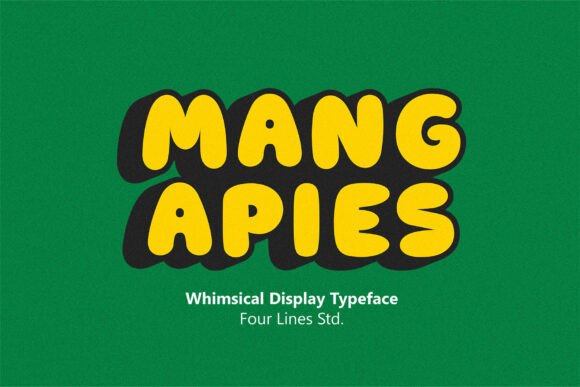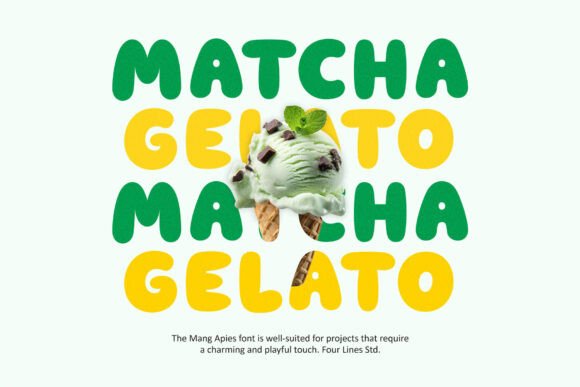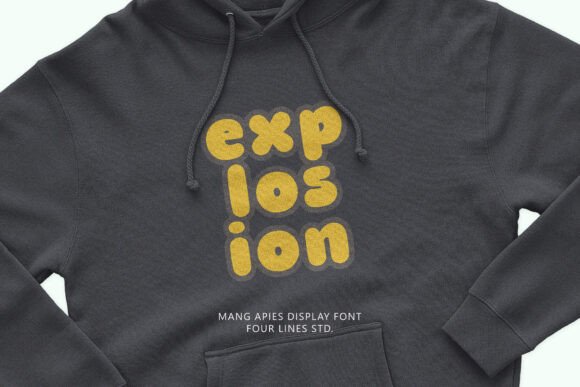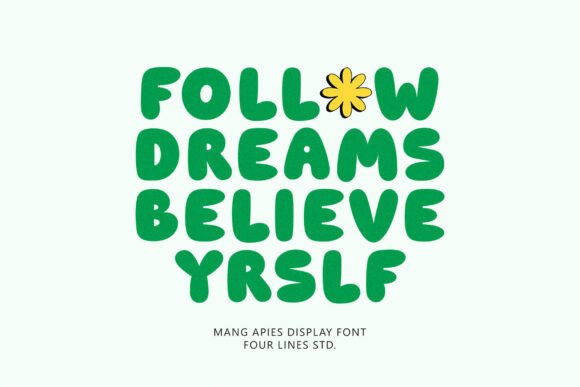
Mang Apies Font: A Playful & Cute Display Font for Creative Designs
About the Mang Apies Font
Add a touch of class to your work with the Mang Apies Font, a truly exceptional typeface. Introducing MangApies, a display font with rounded, balloon-like curves that create a warm and playful vibe. Perfect for designers looking to inject a bit of joy and personality into their work, this font offers a friendly and modern look that suits a wide range of creative projects.
MangApies thrives in display contexts such as headlines, short slogans, and logos where its playful character shines. It’s ideal for branding projects targeting a younger demographic or those emphasizing fun and approachability. Consider it for packaging design, posters, and social media graphics, but avoid using it for body text or lengthy paragraphs; its rounded forms can reduce readability at smaller sizes.
Its friendly, almost bubbly personality pairs well with clean sans-serif fonts like Open Sans for a balanced contrast, or a more geometric sans-serif like Futura for a modern feel. For a touch of elegance, consider pairing it with a delicate script font, but keep the script usage limited to avoid overwhelming the overall design.
MangApies’ core personality is undeniably cheerful and modern. Avoid using it in contexts requiring seriousness or formality. Its informal nature makes it unsuitable for projects demanding a sophisticated or high-end aesthetic.
Mang Apies Font Usage Examples
Mang Apies Font Example